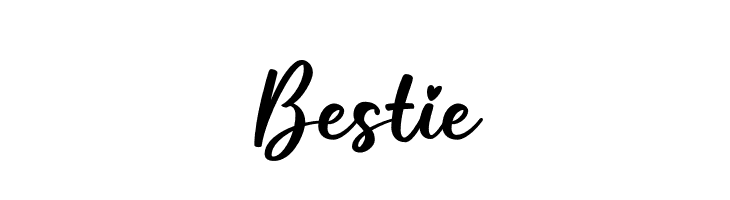
• Sarodime caratteri
An elegant script font with flowing, high-contrast strokes and graceful swashes.
• Aerocentrix caratteri
A bold, geometric font with a modern and industrial aesthetic.
• Badminton Of Shadow caratteri
A bold, dynamic script font with interconnected letters and a shadow effect.